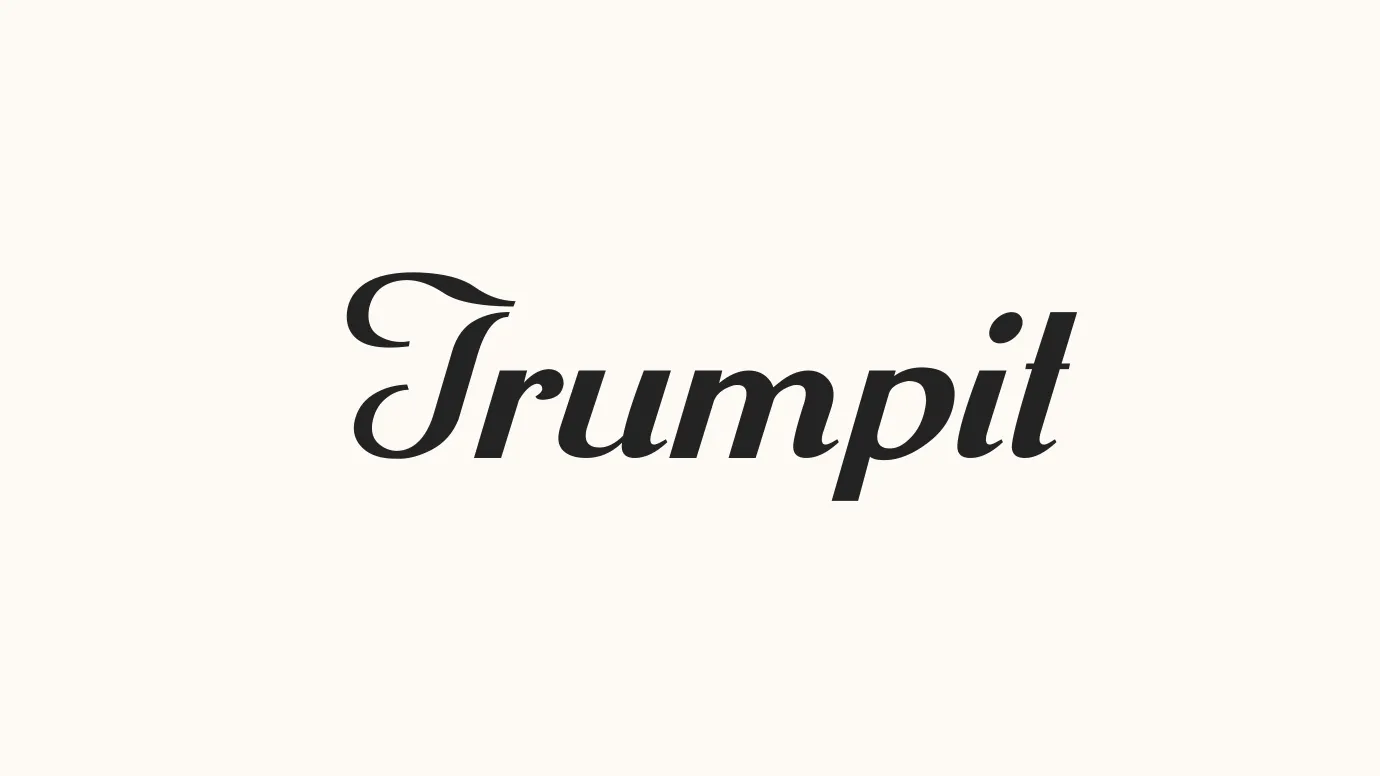
Trumpit Font Family is a very stylish script-type font and it was designed by Typesgal. You can make so many interesting projects by using this font. It has amazing features with 354 characters, 310 glyphs, and 2048 units per Em.
Trumpit Font